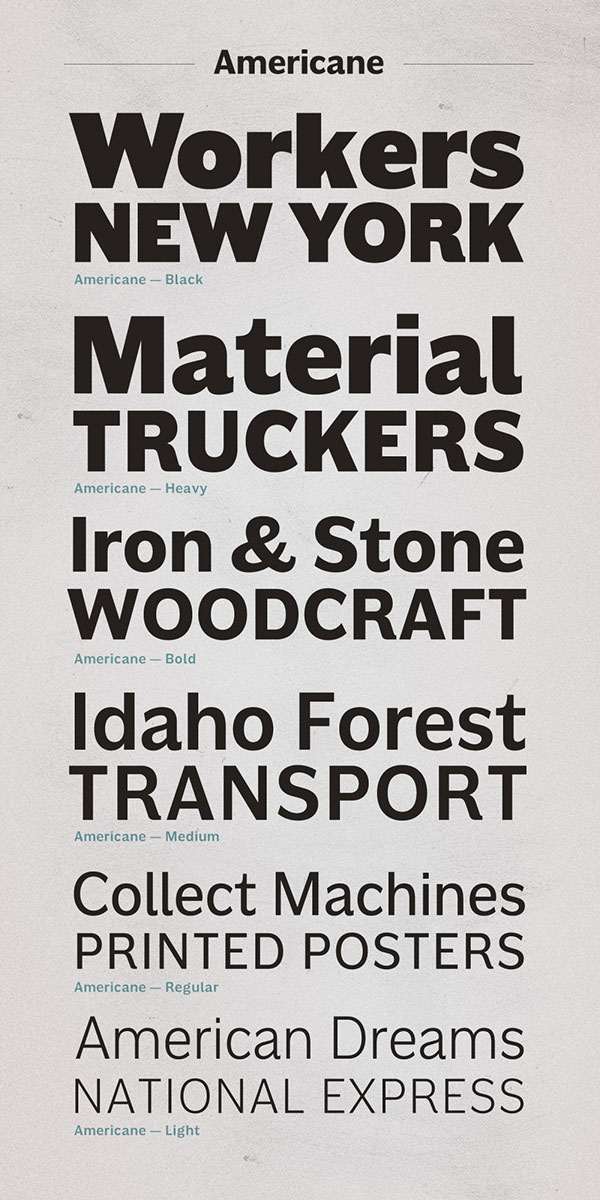
Americane and Americane Condensed, a superfamily by Hannes von Döhren of 24 fonts – published by HVD Fonts.
This new superfamily from HVD Fonts currently consists of Americane (the basic version) and Americane Condensed. Hannes von Döhren‘s inspiration came from old wood type specimen books. His aim was to develop a typeface that is reminiscent of the handcrafted values from these early lettering pioneers. In addition, the font should have all current opportunities of a modern typeface.
Both styles, the basic version as well as the condensed version form a superfamily that includes 24 fonts in total. Their 6 weights ranging from Light to Black and of course there are also matching italics for each weight. This sans serif typeface is made for professional typography. The OpenType font versions are equipped with 5 different numerals, several alternate letters and arrows. The extended character set supports Central and Eastern European as well as Western European languages. Both current widths of this superfamily are available as webfont and desktop font.